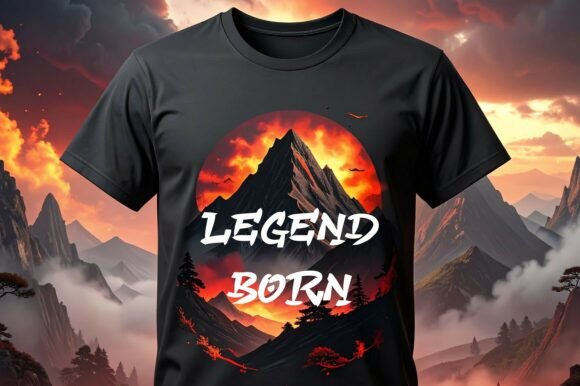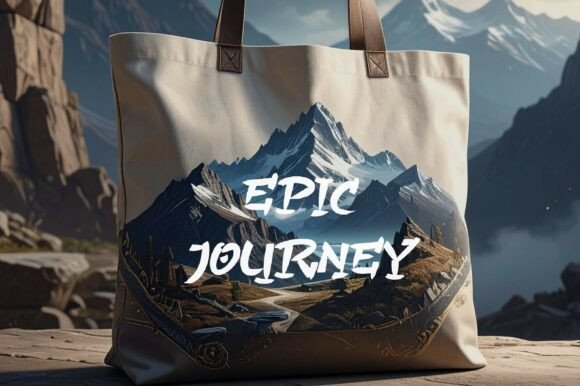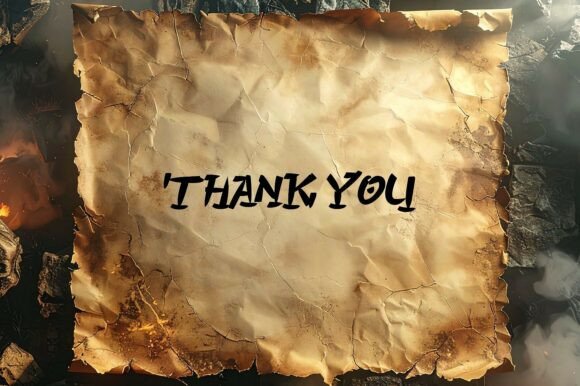
Unleash Your Creativity with Astaga Dragon Font: A Powerful Display Font for Fantasy-Themed Designs
Are you a designer or crafter looking for a font that can add a touch of fantasy and adventure to your projects? Look no further than the Astaga Dragon Font. This captivating and robust display font is perfect for creating impactful headlines, strong branding, and fantasy-themed designs that require a bold and rugged aesthetic.
Inspired by Ancient Scripts and Mythical Beasts
The Astaga Dragon Font draws inspiration from ancient scripts and mythical beasts, making it an ideal choice for designers who want to create a sense of history and mythology in their work. The font’s rugged, textured appearance is characterized by sharp, almost claw-like serifs and an uneven, slightly distressed baseline, giving it a raw, chiseled quality that suggests strength, power, and an epic narrative.
What Makes Astaga Dragon Font Stand Out
So, what makes the Astaga Dragon Font different from other display fonts on the market? Here are a few key features that set it apart:
- Rugged, textured appearance: The font’s rugged, textured appearance gives it a unique and distinctive look that is perfect for fantasy-themed designs.
- Sharp, claw-like serifs: The sharp, almost claw-like serifs add a touch of ferocity and strength to the font, making it perfect for designs that require a bold and adventurous aesthetic.
- Uneven, slightly distressed baseline: The uneven, slightly distressed baseline adds a touch of imperfection to the font, giving it a more organic and handmade feel.
- Comprehensive set of characters: The font includes a comprehensive set of uppercase characters, numerals, and essential punctuation glyphs, making it perfect for a wide range of design applications.
Perfect for Fantasy-Themed Designs
The Astaga Dragon Font is perfect for designers who want to create fantasy-themed designs that require a bold and rugged aesthetic. The font’s epic narrative and mythical feel make it ideal for use in:
- Fantasy novels and book covers: The font’s bold and rugged aesthetic makes it perfect for use in fantasy novels and book covers.
- Game design: The font’s sharp, claw-like serifs and uneven baseline make it perfect for use in game design, particularly in games that require a fantasy or adventure theme.
- Branding and advertising: The font’s bold and rugged aesthetic makes it perfect for use in branding and advertising, particularly for companies that want to create a strong and adventurous image.
In conclusion, the Astaga Dragon Font is a powerful and captivating display font that is perfect for designers and crafters who want to create fantasy-themed designs. Its rugged, textured appearance, sharp serifs, and uneven baseline make it ideal for use in a wide range of design applications, from fantasy novels and book covers to game design and branding. With its comprehensive set of characters and compatibility with a wide range of design tools, the Astaga Dragon Font is a must-have for any designer or crafter looking to add a touch of fantasy and adventure to their work.